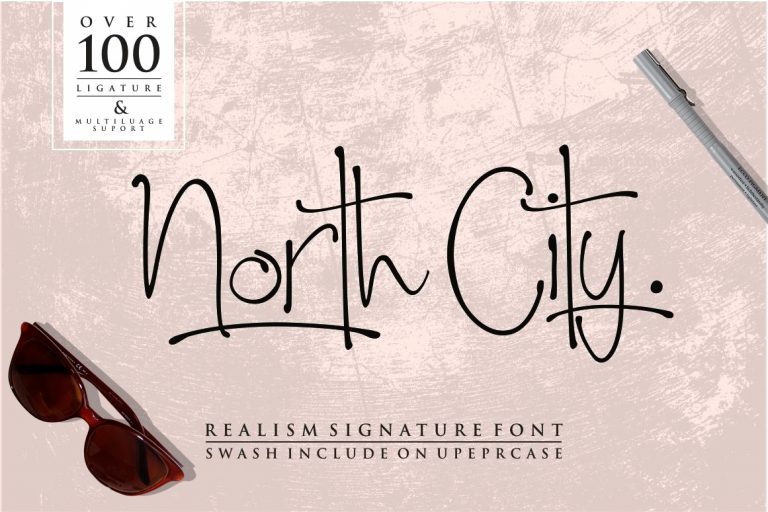
North City Script Font
North City Script Font – Free Demo
I’m excited to introduce you guys to North City Font; a natural handwritten font that is perfect for logotype, headline, invitation, greeting card and more. As a graphic designer, we are often asked to design logos in Signature style, but with real and natural handwriting nuances. So, this font is a manifestation of this idea.